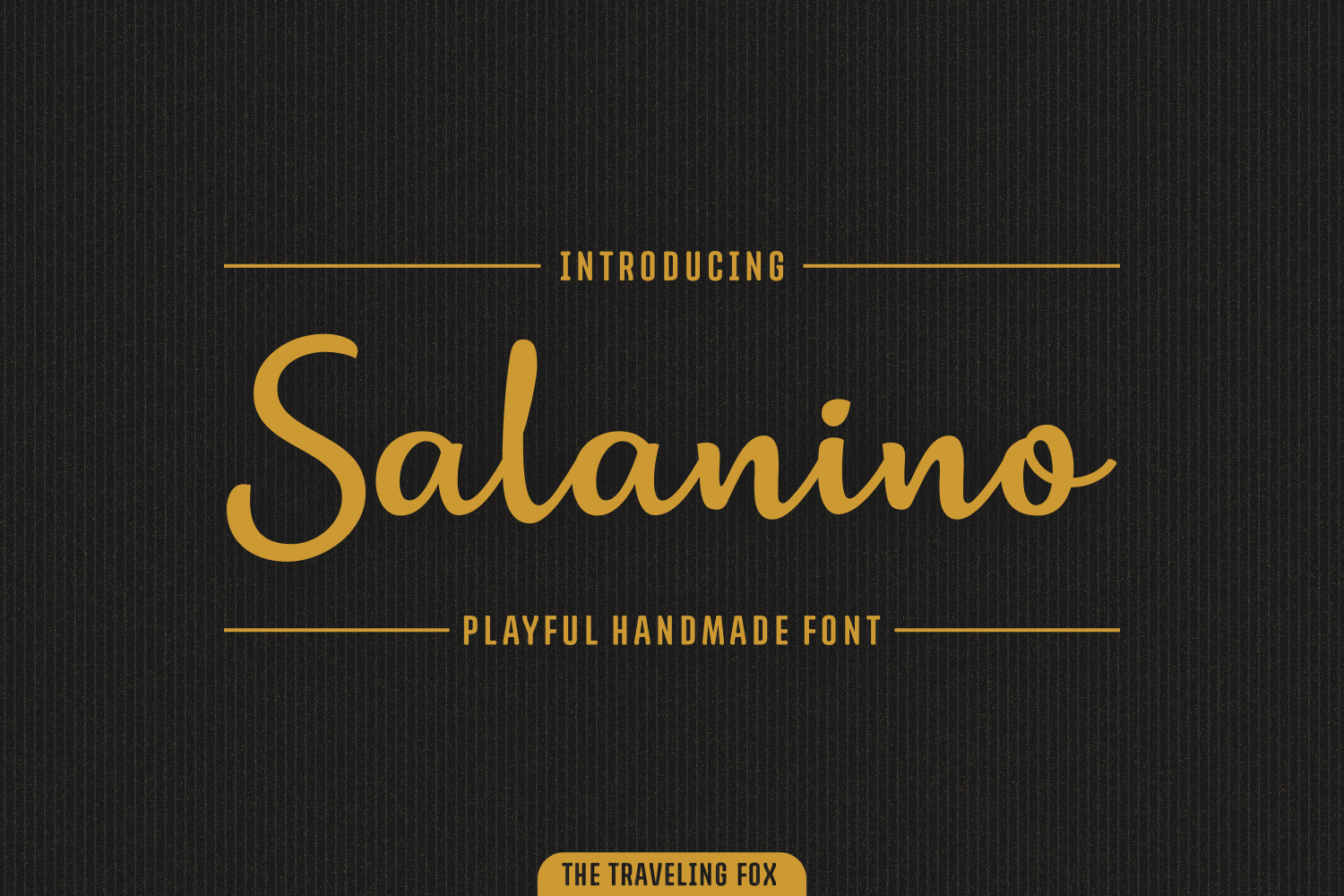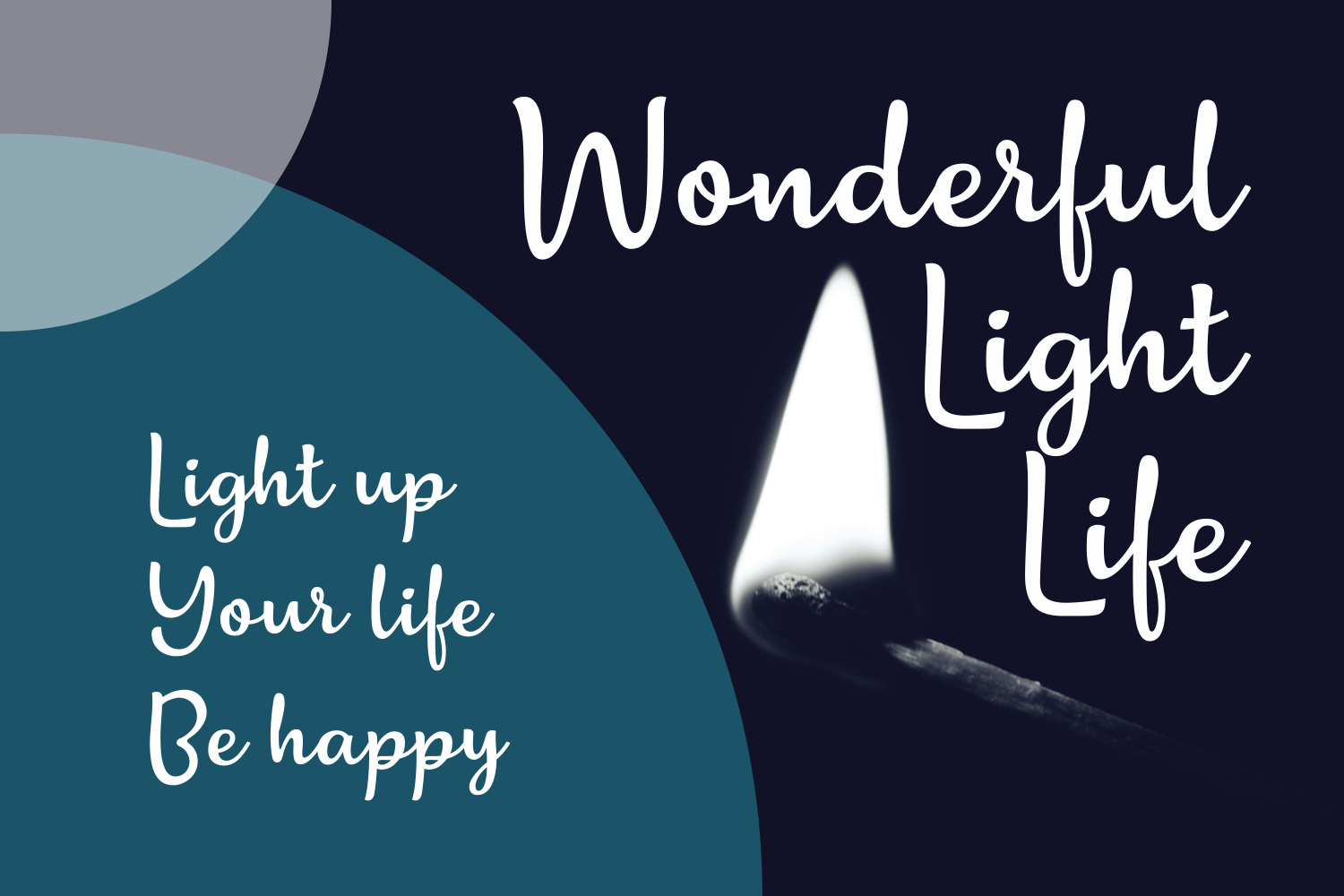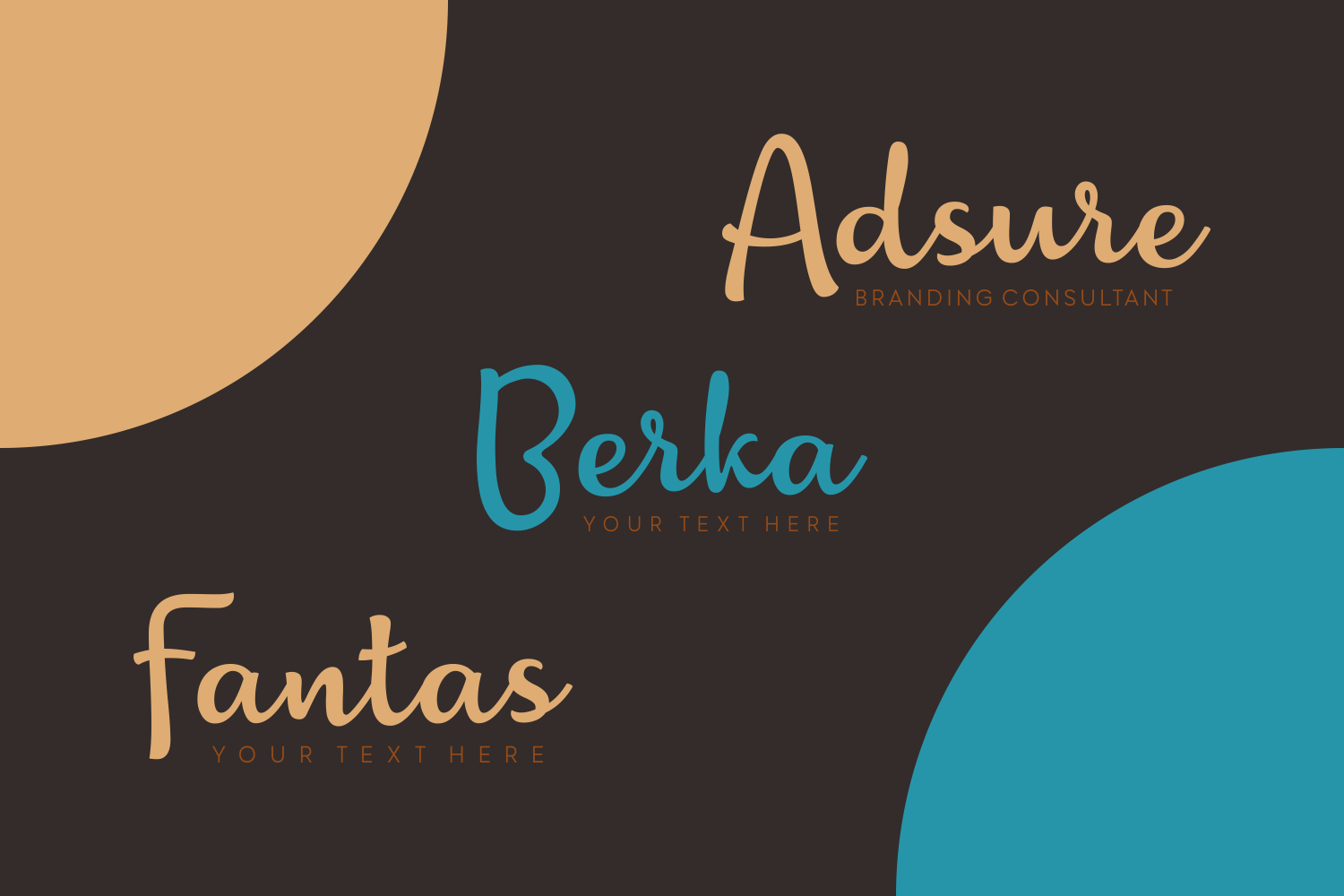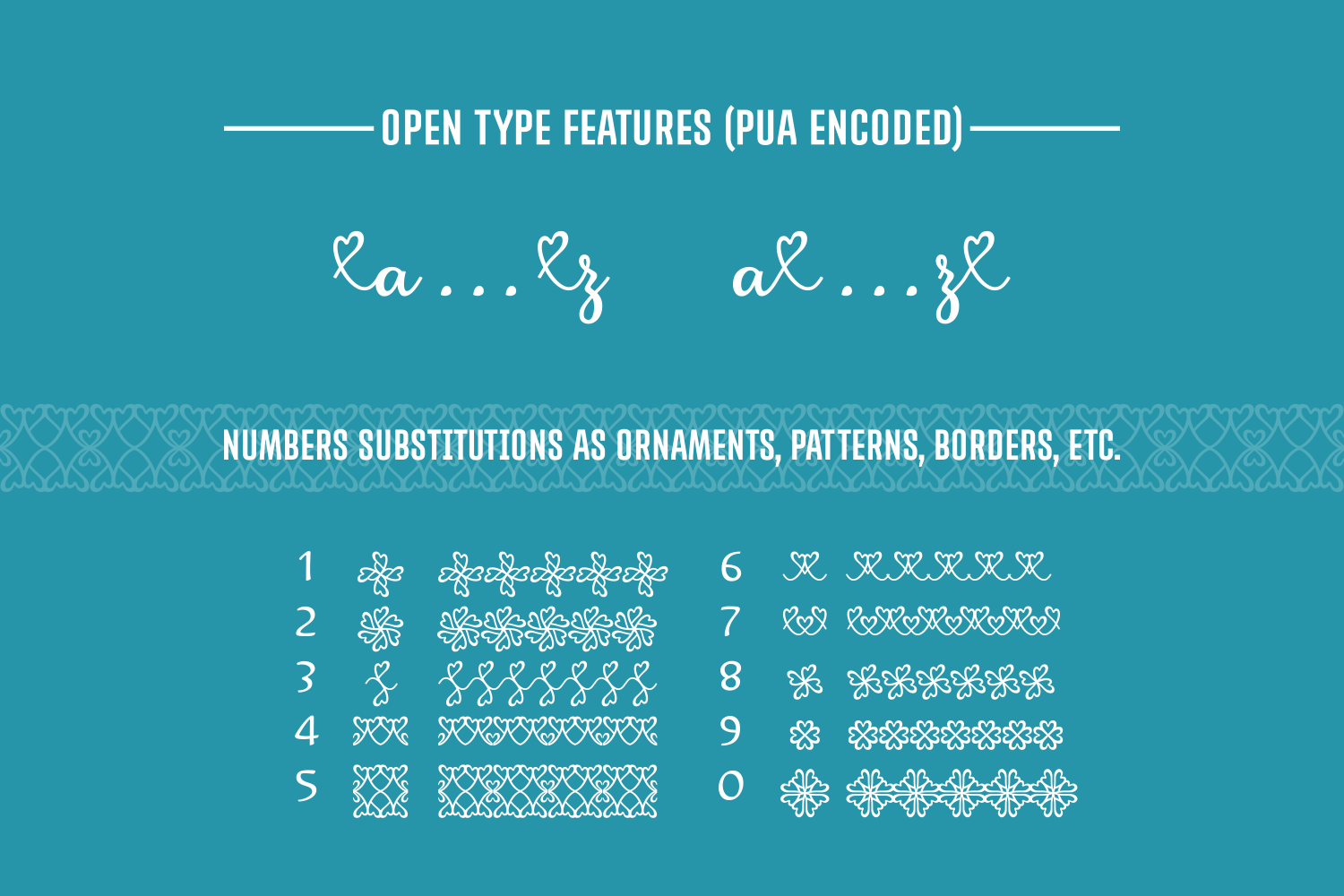
Salanino Font
About Salanino Font
Salanino is a smooth, handwritten font that comes loaded with playful & bold letters.
The quirky letters will add a youthful touch to your designs. It comes with a range of alternate initial and terminal characters.